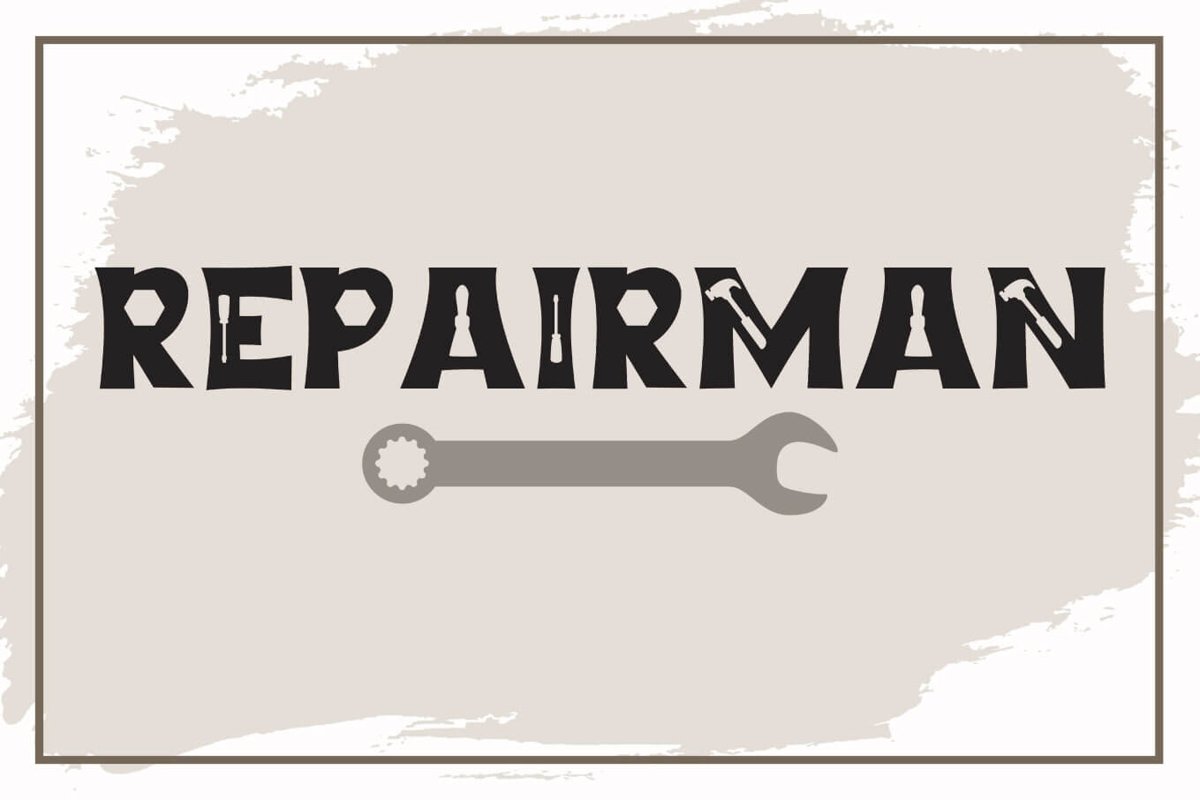
Repairman - a Fun Tool Font
Repairman is a fun font to use in your crafting projects!
Make dad & grandpa something fun for Father's Day with Repairman.
• Uppercase: A-Z
• Numbers: 0-9
This font does not include punctuation.